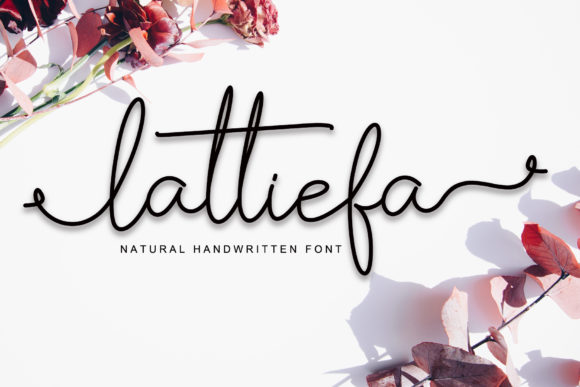
Get ready to immerse yourself in the enchanting realm of Lattiefa, the epitome of script fonts crafted by the ingenious hands of AEN Creative Studio. Lattiefa is not just a font; it's an artistic masterpiece that will add a touch of elegance and sophistication to any design project.
Picture this: You're designing an invitation for your once-in-a-lifetime wedding day. You want everything to be perfect; every element, every detail, each word conveying the love and joy you feel. Lattiefa steps onto the stage, its graceful swashes and delicate ligatures dancing harmoniously, creating a visual masterpiece that captures the essence of your emotions.
Lattiefa's versatility knows no bounds. Whether you're designing logos for your budding business, crafting social media posts that demand attention, or simply adding a personal touch to your signature, Lattiefa molds itself seamlessly into your vision. Its timeless elegance and charm will leave a lasting impression on all who encounter it.
But Lattiefa isn't just beautiful; it's also incredibly user-friendly. Its intuitive design makes it a joy to work with, allowing you to unleash your creativity without any technical hurdles. Let Lattiefa be your artistic partner, guiding you towards design excellence with effortless grace.